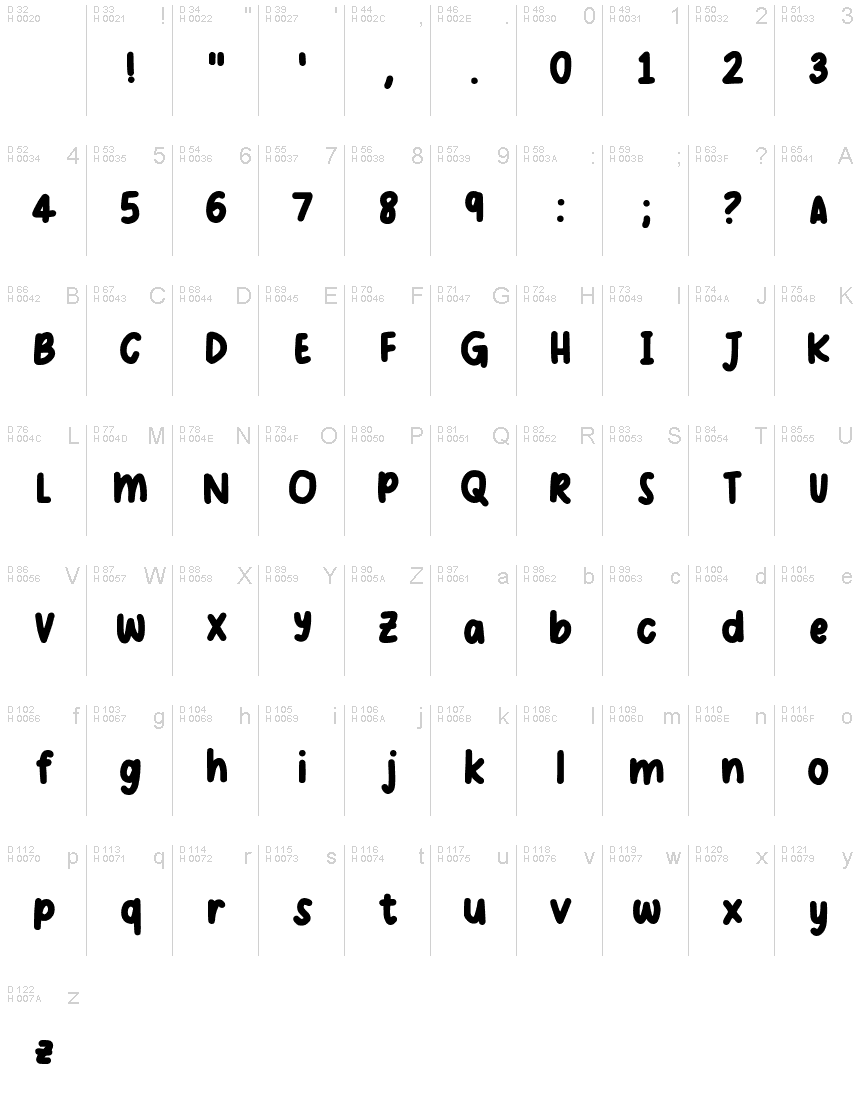
Chloe Regular
Introducing Chloe, a bold handwritten font designed by Chloe Chan. Perfect for creating natural and unique designs, Chloe can be used to add a personal touch to projects such as logos, invitations, cards and posters.